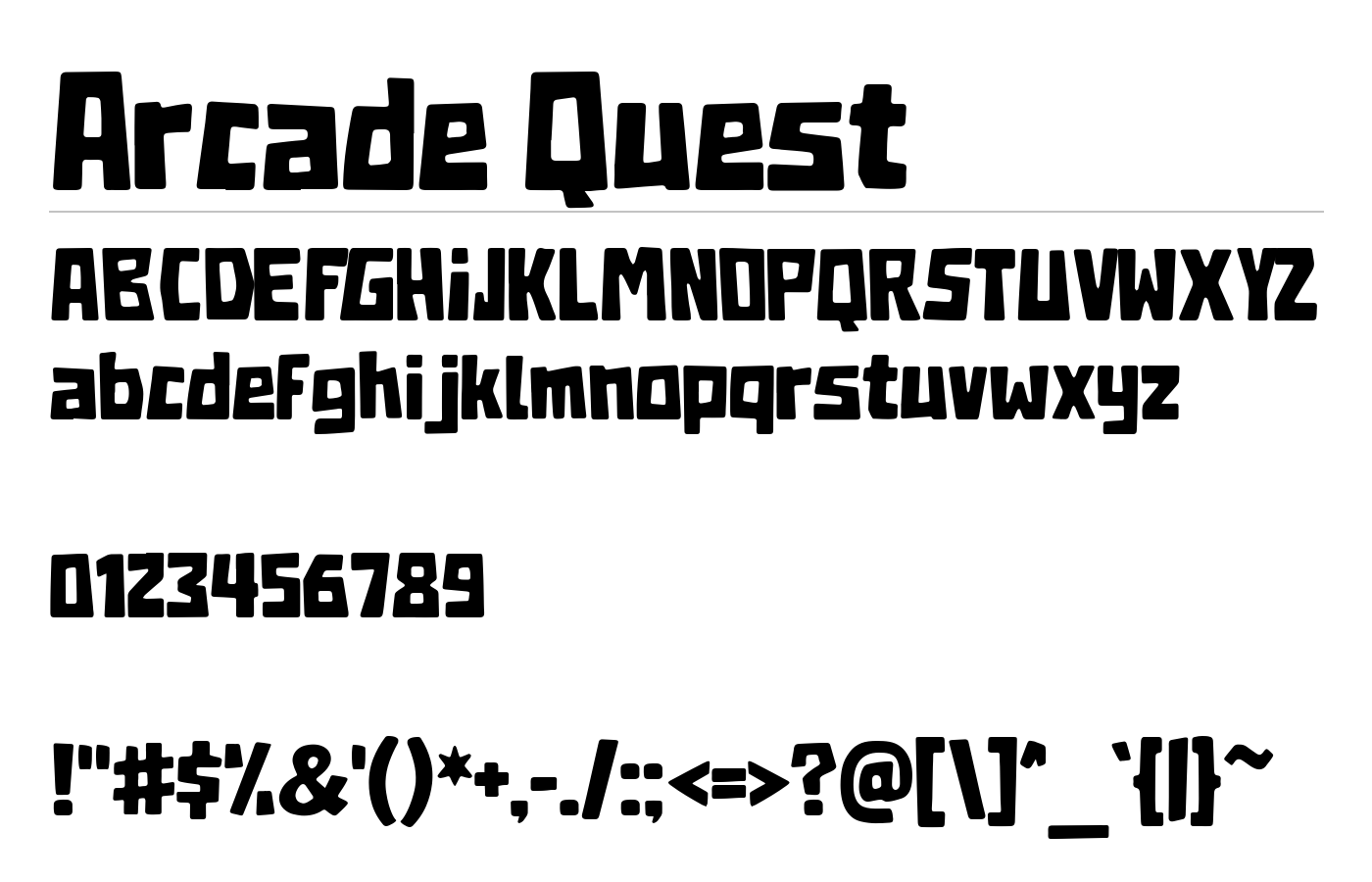
Arcade Quest is a bold, playful sans serif font with a quirky, slightly uneven design that gives it a retro, game-inspired vibe. Its chunky, irregular letterforms and strong presence make it perfect for fun and energetic branding, headlines, posters, or anything needing a touch of nostalgia and personality. This font works best where a bold, eye-catching style is desired, especially for entertainment and gaming-related projects.
Arcade Quest Font
About Arcade Quest Font